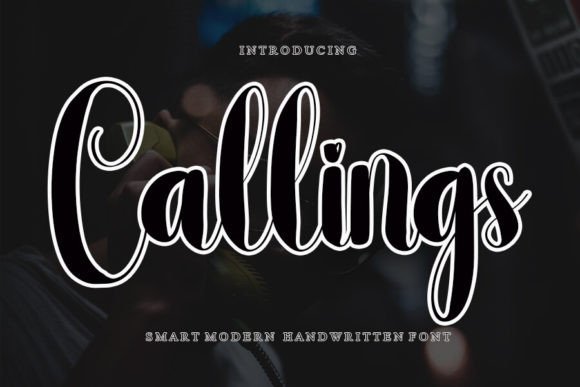
In a world where individuality dances on the edge of conformity, Callings Font emerges as an enchanting script, crafted with the soul of an artist and the precision of a master calligrapher. This font is not just a collection of letters; it's a gateway to a world of elegance, creativity, and boundless expression.
With its sweeping strokes and mesmerizing curves, Callings Font is a symphony of sophistication and charm. Its timeless calligraphy style evokes a sense of history, while its contemporary touch adds a breath of freshness that resonates with the modern spirit. This font is a true chameleon, effortlessly adapting to a myriad of projects, from wedding invitations and branding materials to social media posts and stunning works of art.
Unleash your creativity with Callings Font and watch as your words transform into captivating masterpieces. Let your imagination soar as you explore the endless possibilities this font offers. Its PUA encoding grants you access to a treasure trove of glyphs and ligatures, empowering you to add exquisite details and flourishes to your designs.
Step into the world of Callings Font and discover a realm where beauty, elegance, and individuality intertwine. Embrace the allure of this script and let your projects shine with a touch of timeless grace and captivating charm.